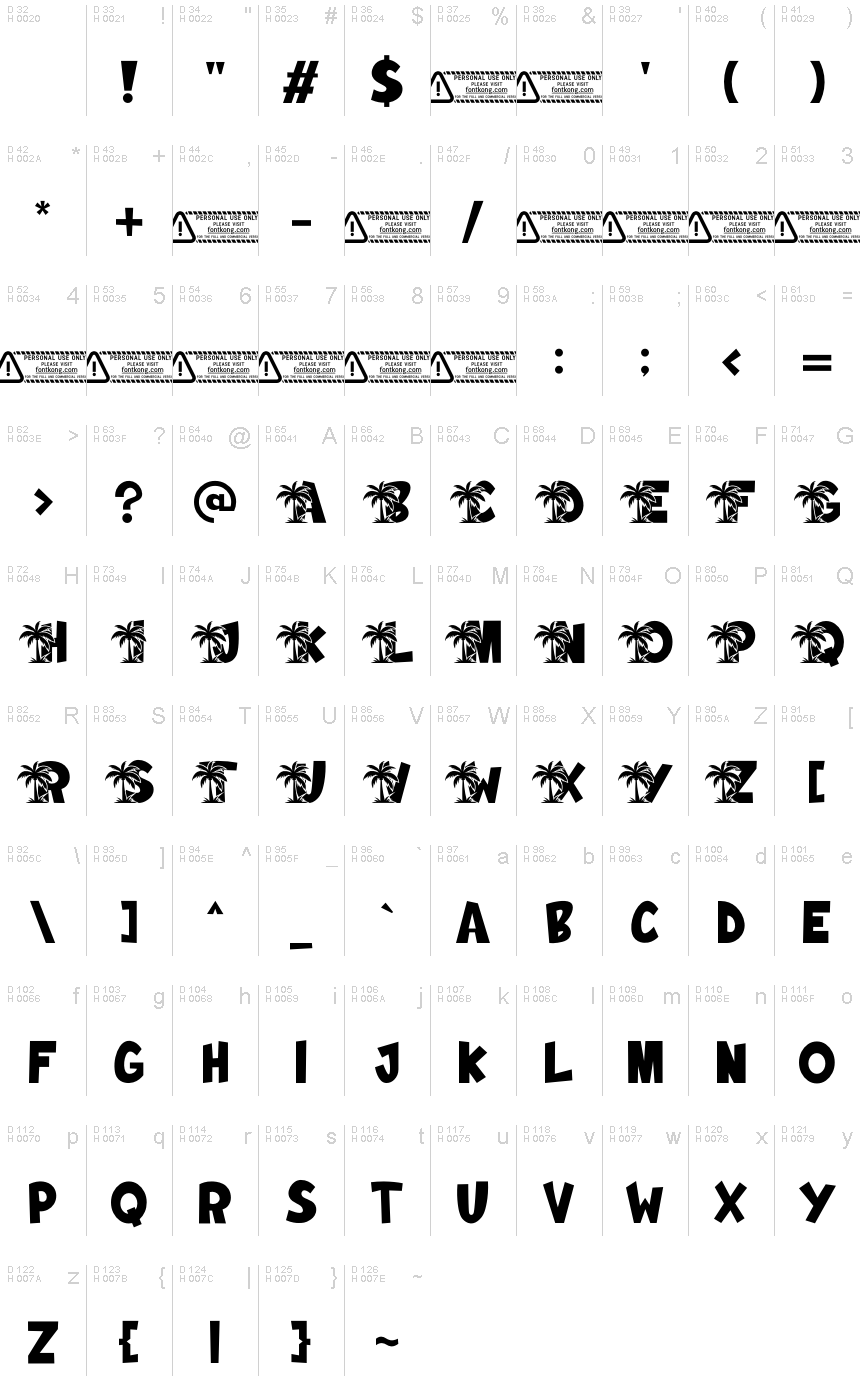
Island PERSONAL USE ONLY!
Island is a bold, decorative display font crafted by Kong Font. This captivating typeface exudes a tropical vibe, with its palm tree-inspired shapes and robust, eye-catching letterforms. The font's substantial weight and distinct character make it an ideal choice for attention-grabbing headlines, impactful logos, and vibrant branding applications.
The striking contrast between the thick, solid strokes and the open, airy negative space lends Island a dynamic, modern flair. Its versatility shines through in its ability to convey a sense of laid-back, beachy allure or to project a bold, confident attitude, making it a versatile choice for a wide range of design projects.